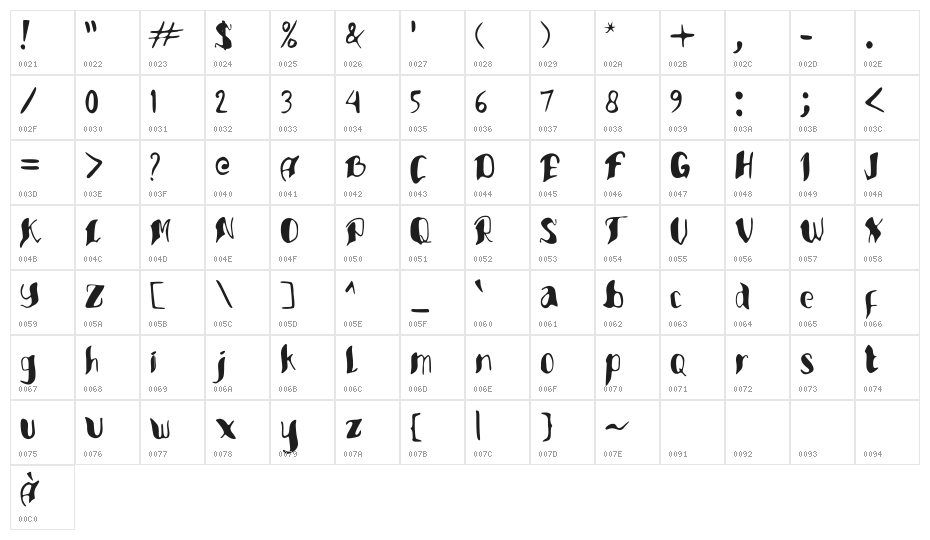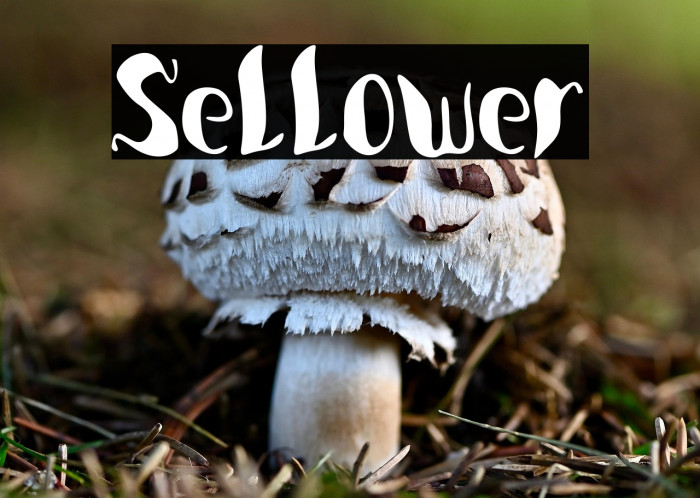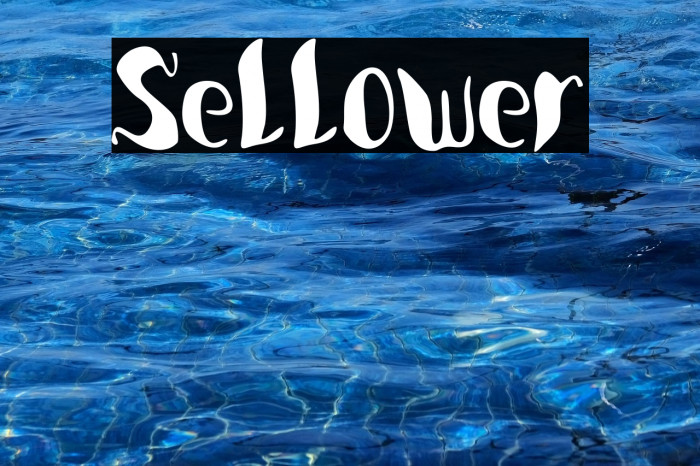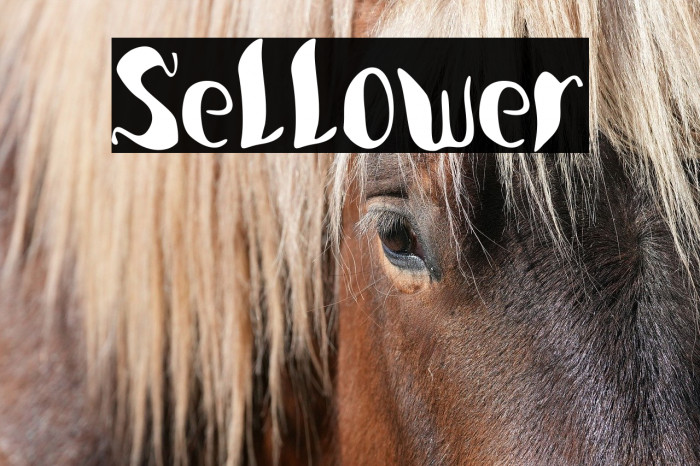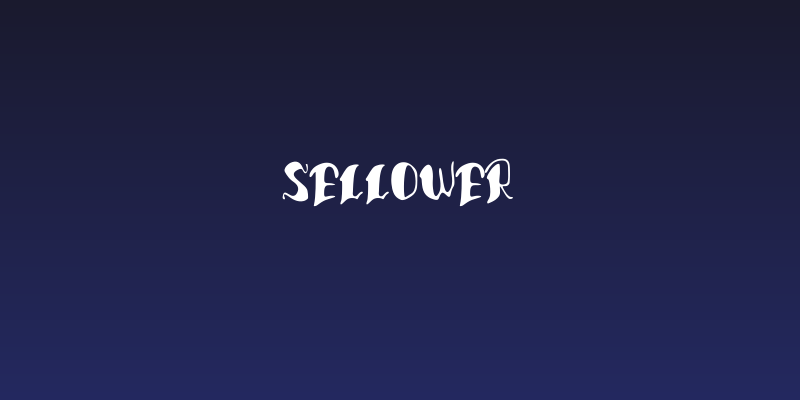
Sellower Font
Sellower Description
This font features a bold and expressive style with a handwritten flair. The characters are uniquely crafted with varying stroke thickness, giving it a dynamic and artistic appearance. The uppercase letters are bold and prominent, while the lowercase letters maintain a fluid and cursive-like quality. Numbers and special characters are designed to match the overall aesthetic, making them suitable for creative and decorative purposes. The font's playful and energetic vibe makes it ideal for projects that require a touch of personality and creativity.
| Proposed Projects | Ideal for branding, posters, invitations, and artistic projects that require a personal touch. |